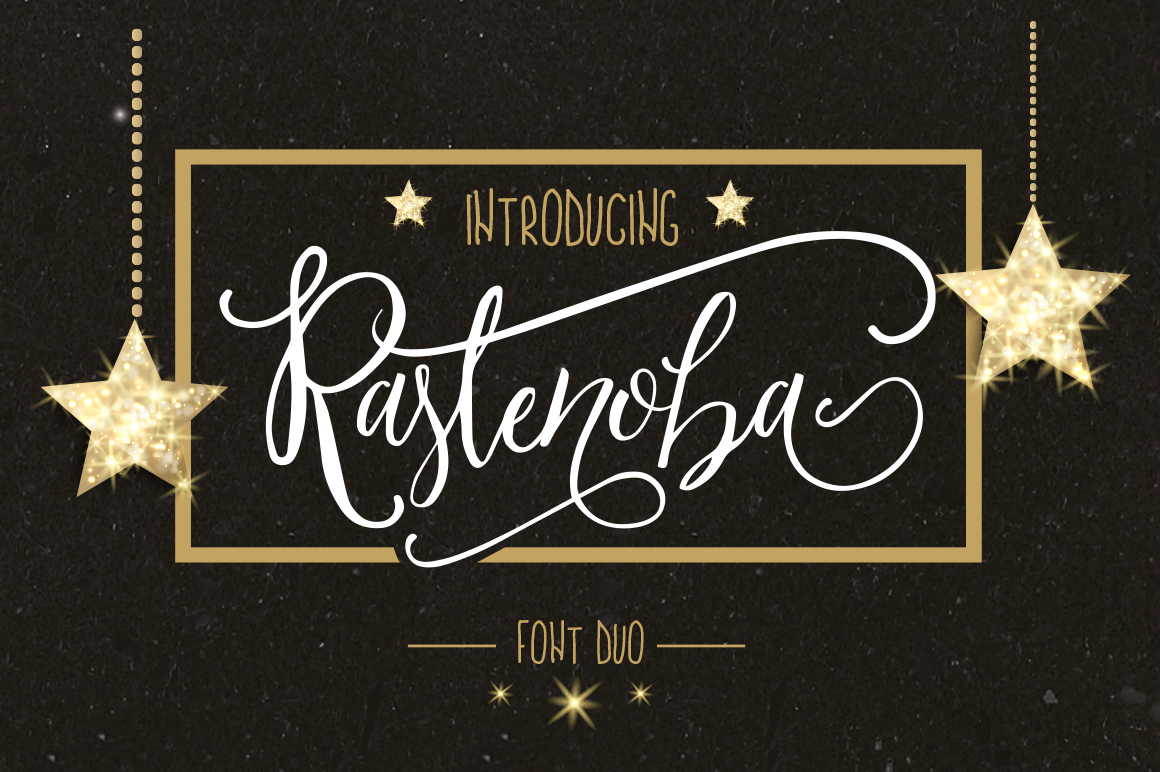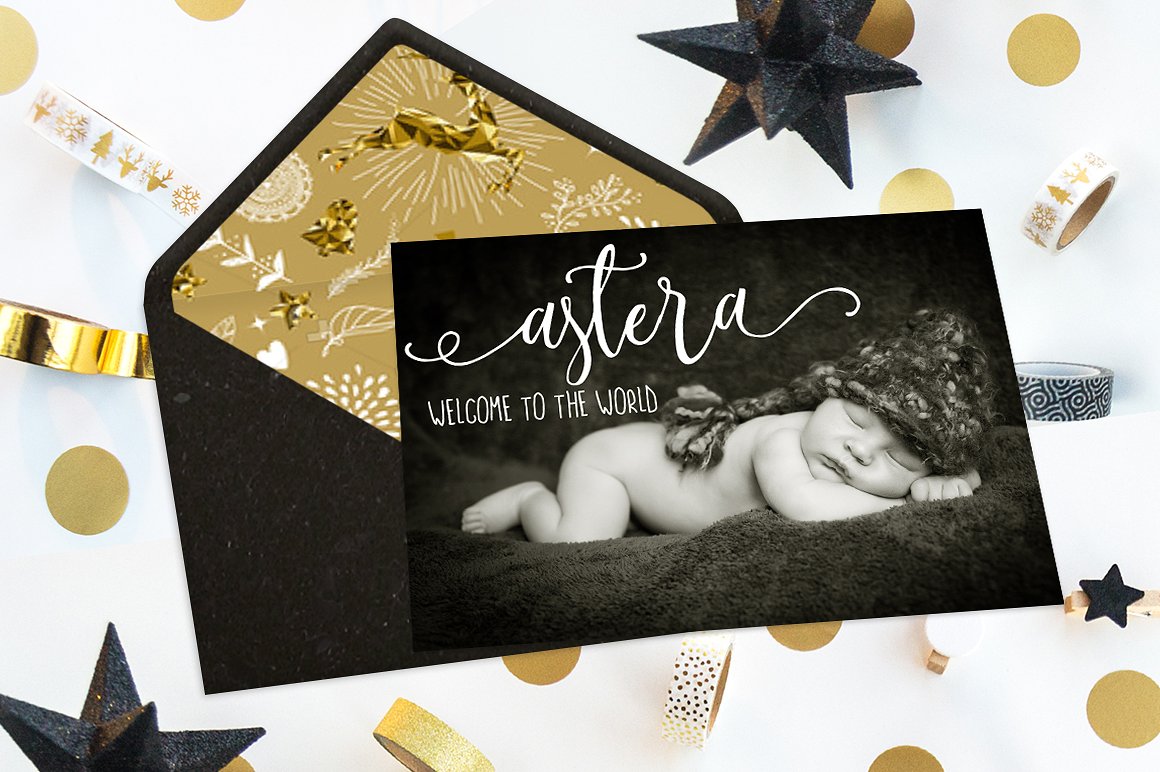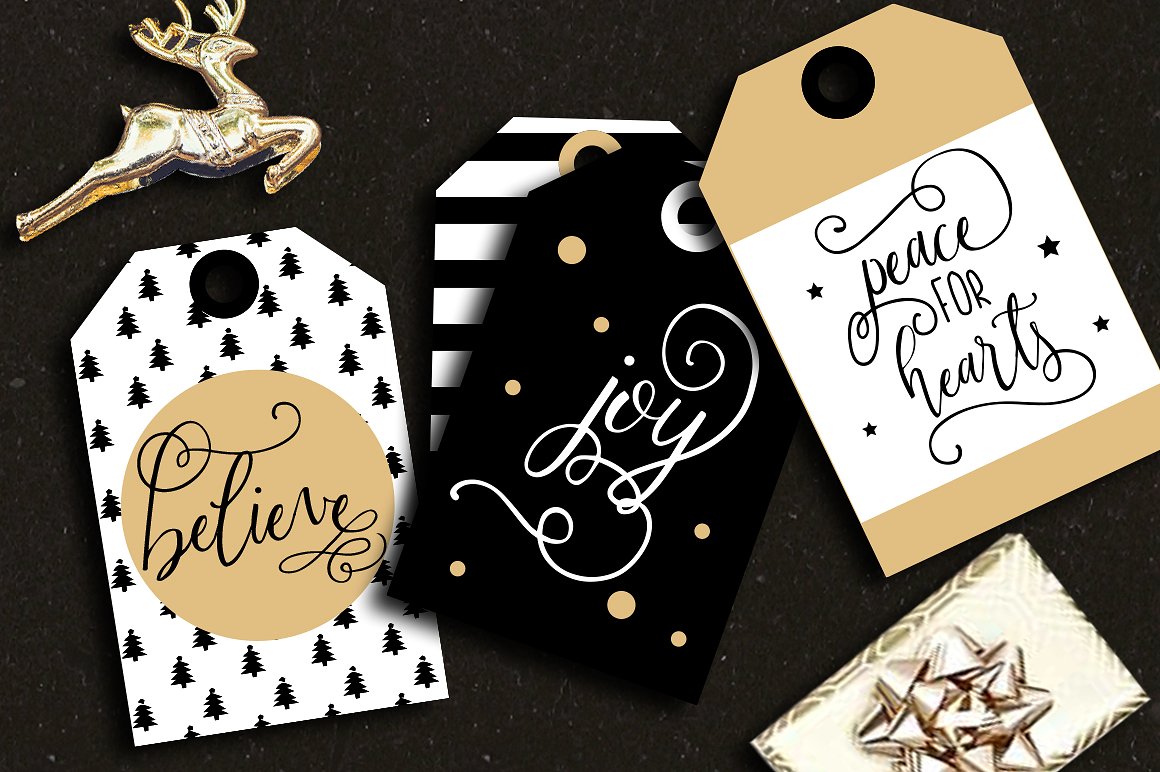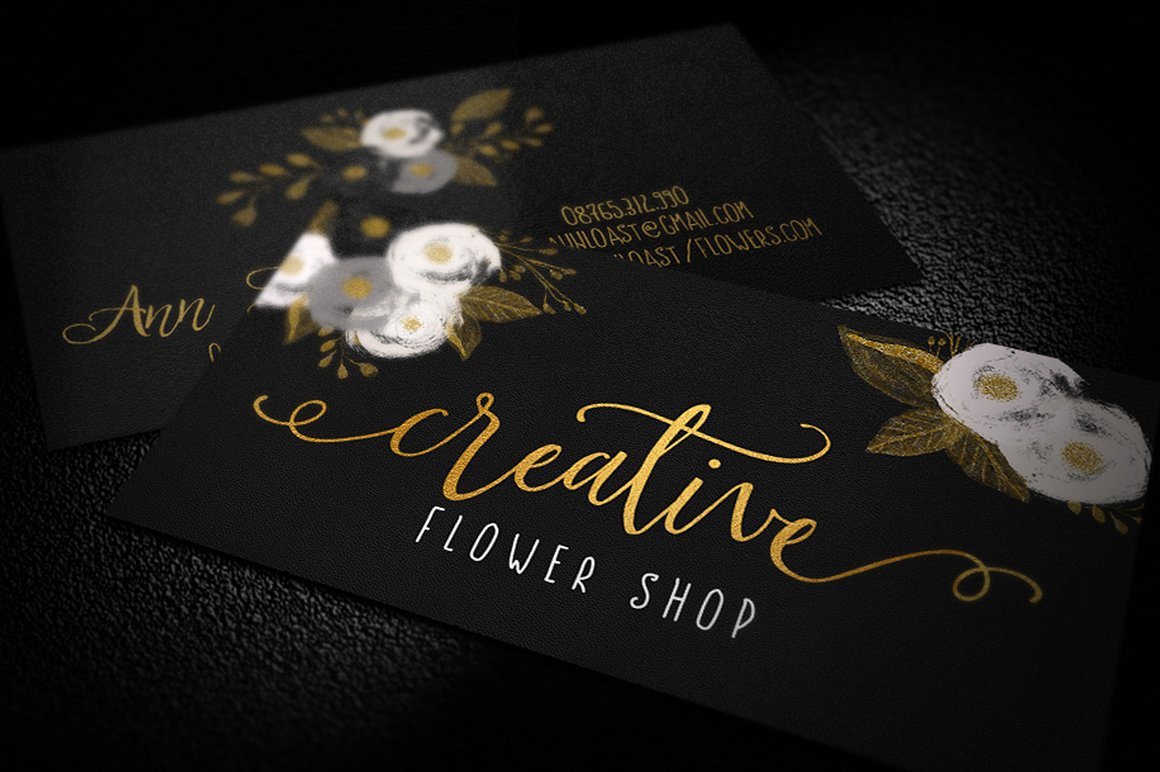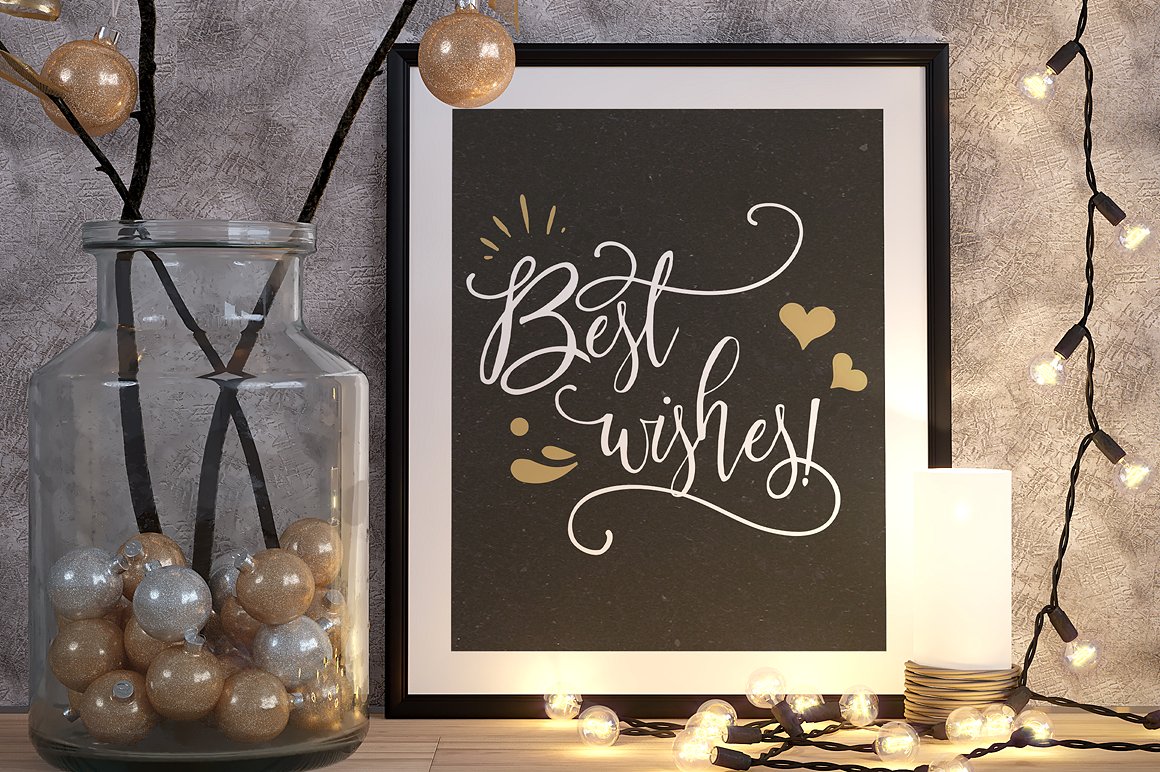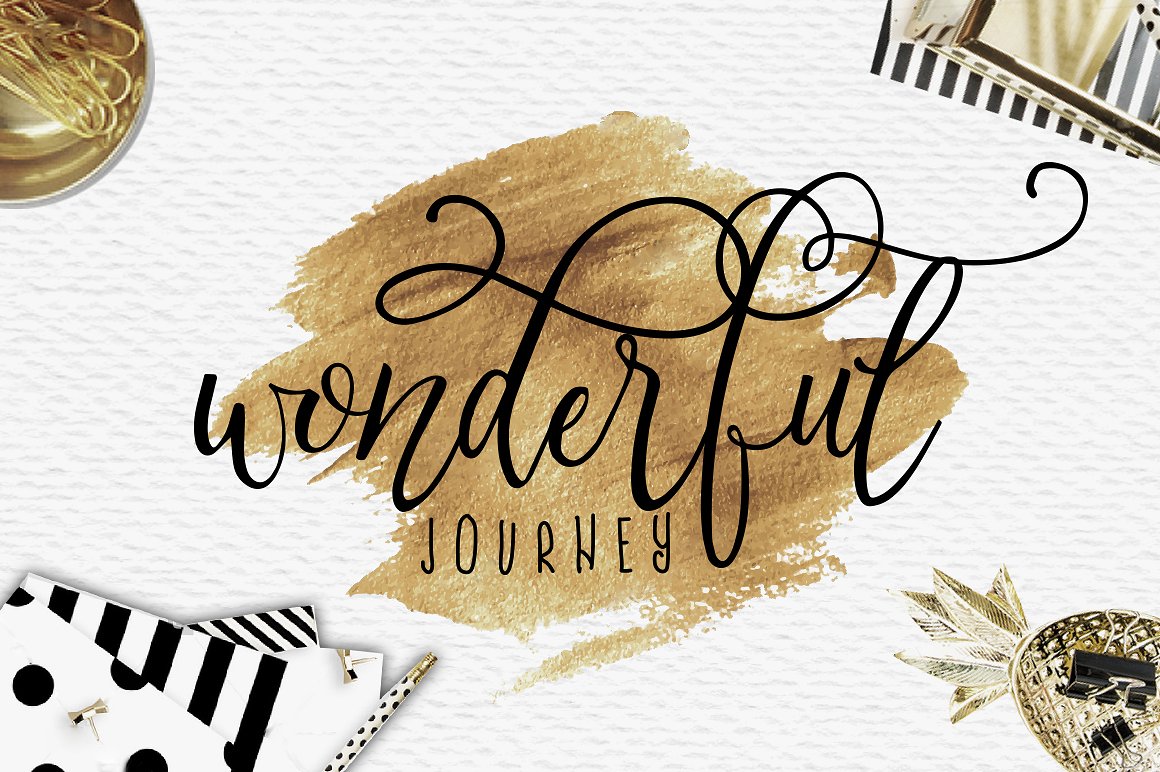
Rastenoba Script Font
About Rastenoba Script Font
Introducing the beautiful Rastenoba Font Duo, a beautiful and elegant modern script; pretty and with swashes, use Rastenoba for a wide range of designs and projects that need an elegant and classy appeal.